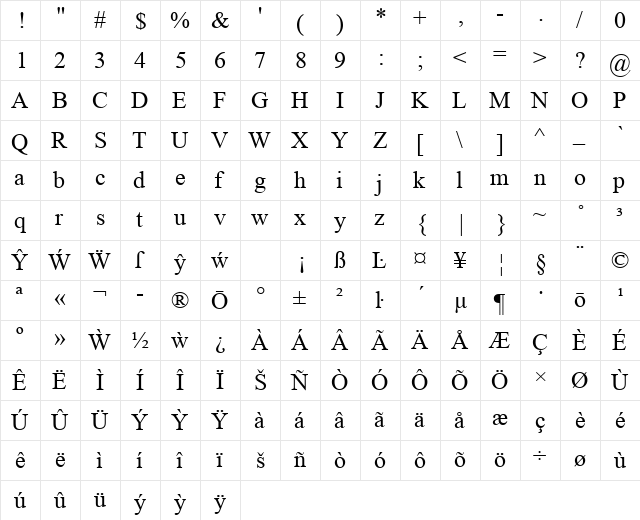
Liborsoft Latin G Regular
Design Context for Liborsoft Latin G Typeface
Liborsoft Latin G offers clean, dependable letterforms without strong stylistic allegiance, making it a practical choice for designers who need flexibility.
Pro Tip: Use Liborsoft Latin G in both headline and body roles to test its range before committing to a single application.